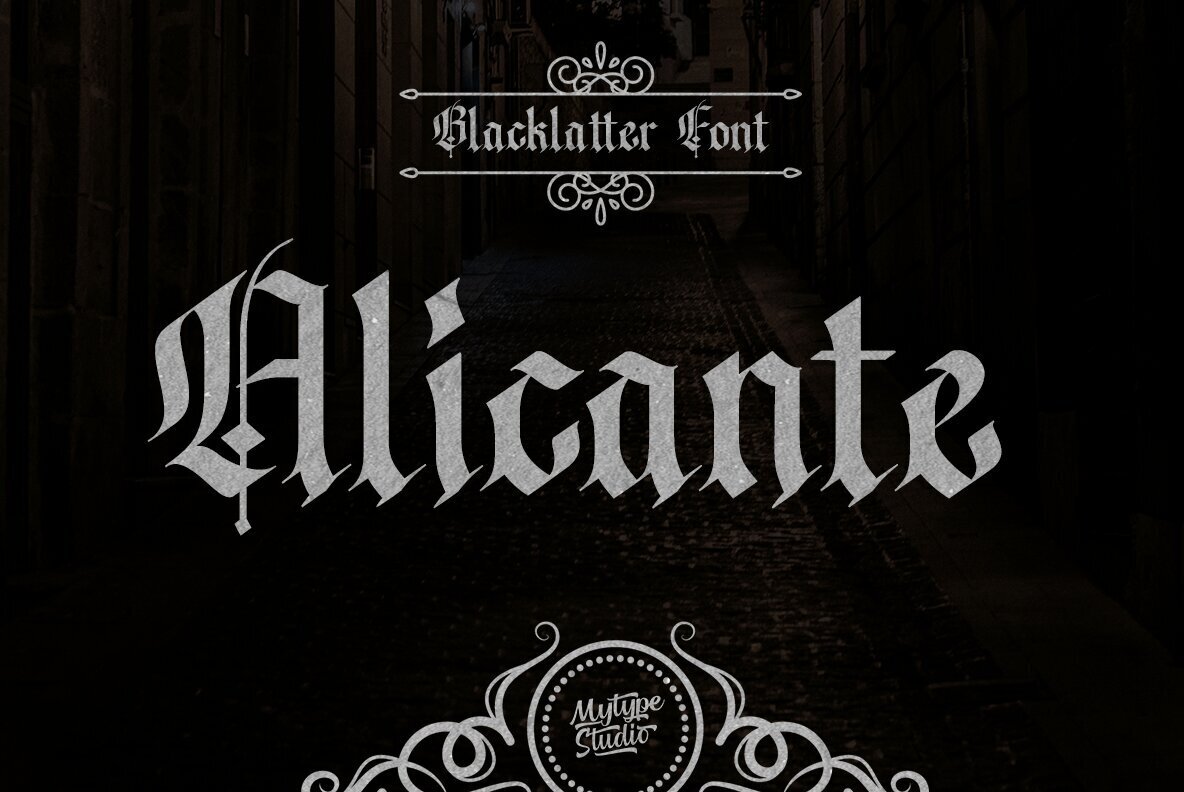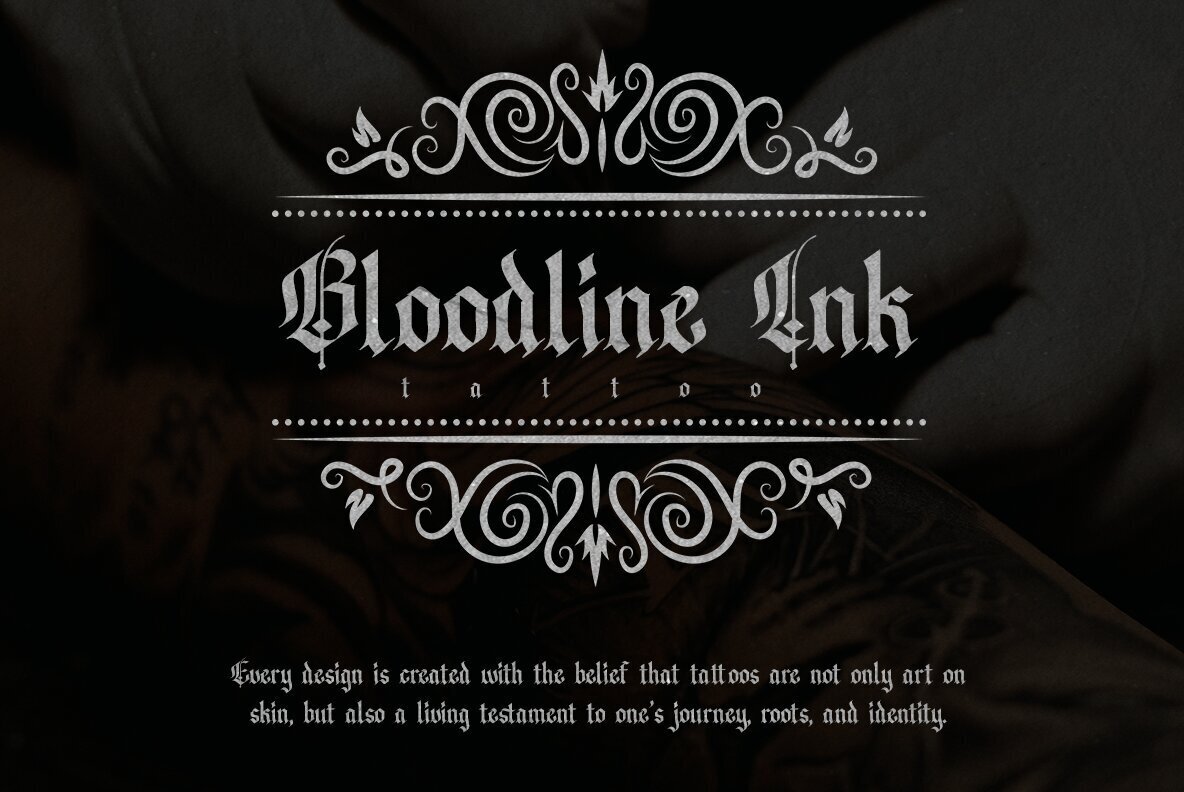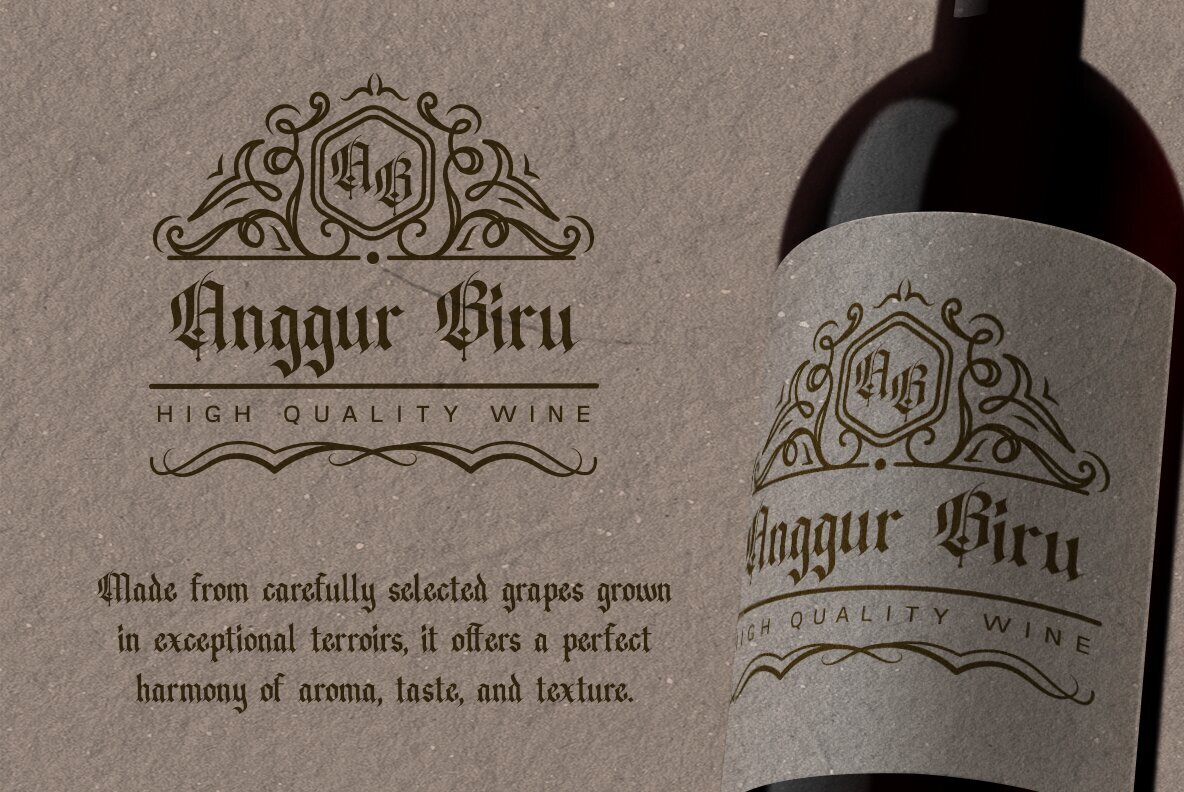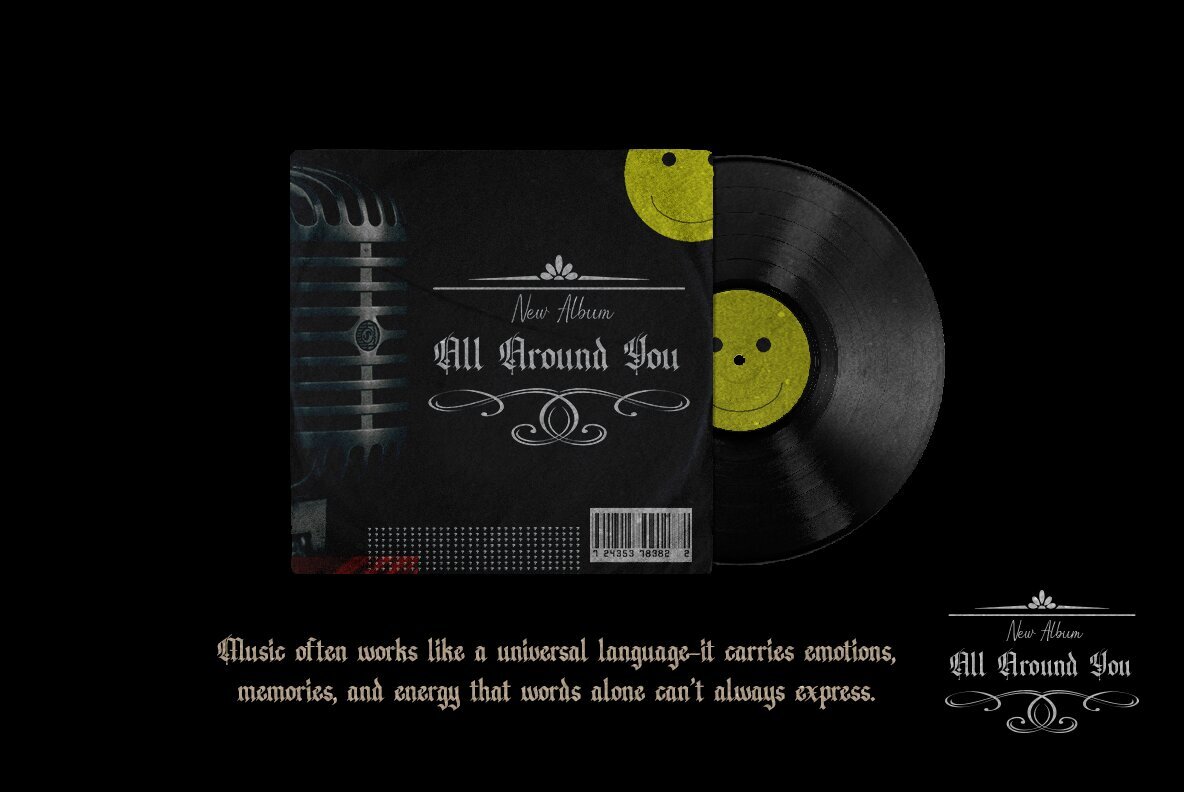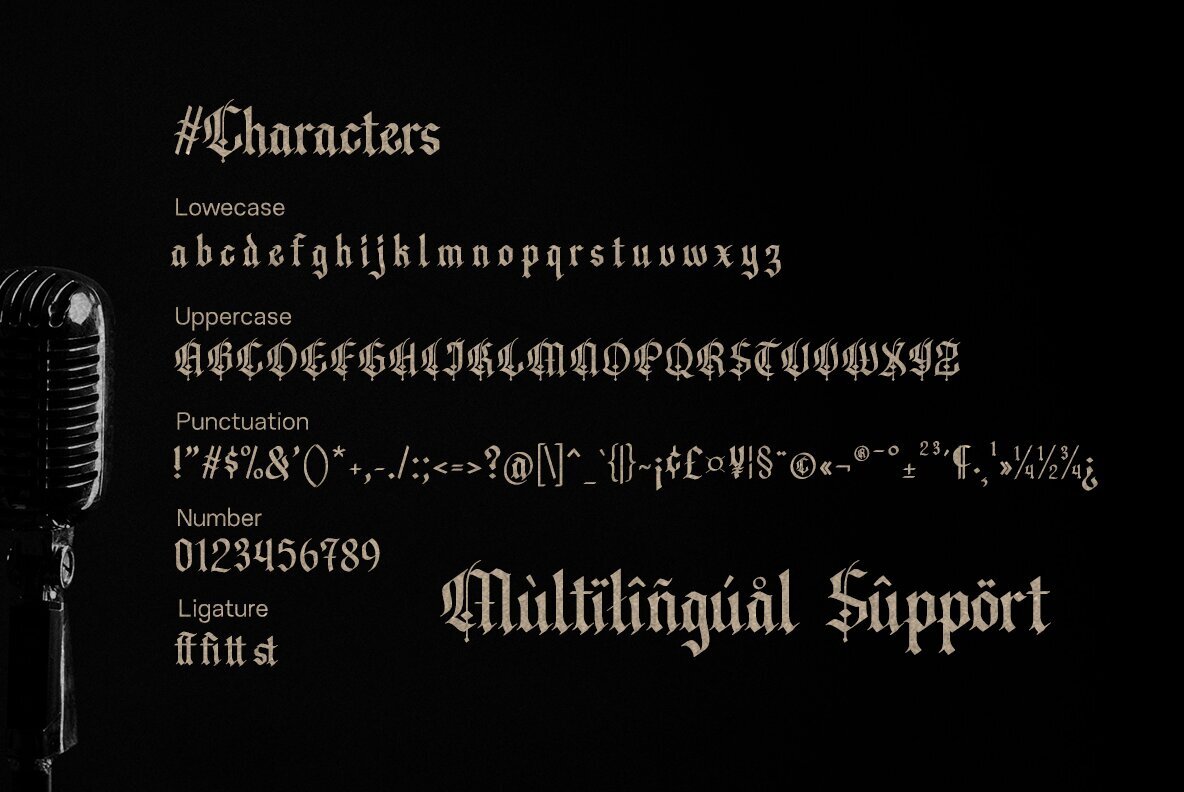
Alicante Font
Alicante
Alicante is a captivating Blackletter font by Mytype Studio that merges medieval calligraphic tradition with a modern twist. Characterized by sharp strokes, dramatic curves, and intricate details, this font exudes elegance and authority. Its gothic-inspired flair makes Alicante incredibly versatile, adeptly fitting both vintage and contemporary aesthetics. Enhance your designs with a touch of medieval artistry and gothic elegance using Alicante – a typeface crafted to make your work unforgettable.Alicante: A Bold Blackletter Font
Perfect for Diverse Applications